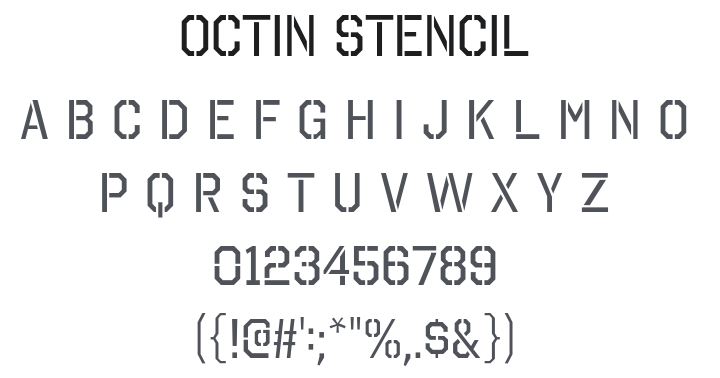
Octin Stencil Font
About Octin Stencil
Octin Stencil translates industrial utility into a clean, adaptable stencil design with seven weights that range from functional light cuts to powerful bolds. Its precise geometry and practical gaps evoke factory lettering and military graphics while staying versatile for branding, signage, and editorial use. Supporting Latin-based European languages and part of the larger Octin family, it maintains visual cohesion across projects that demand clarity and durability. Octin Stencil delivers rugged professionalism with a modern, engineered edge.